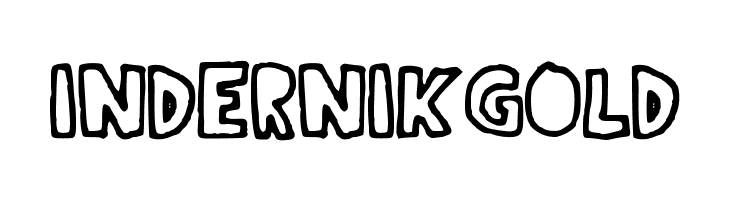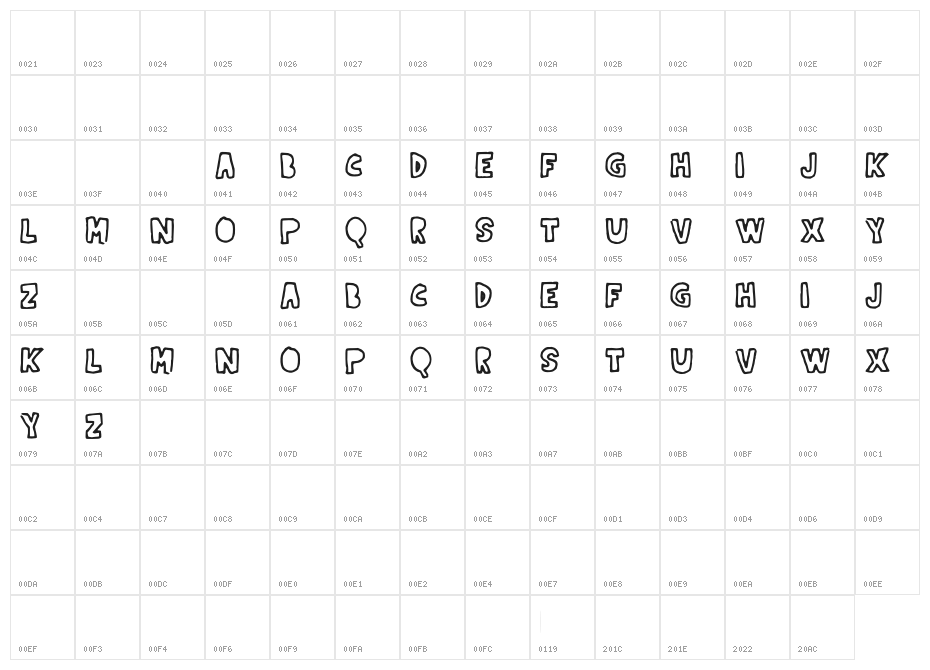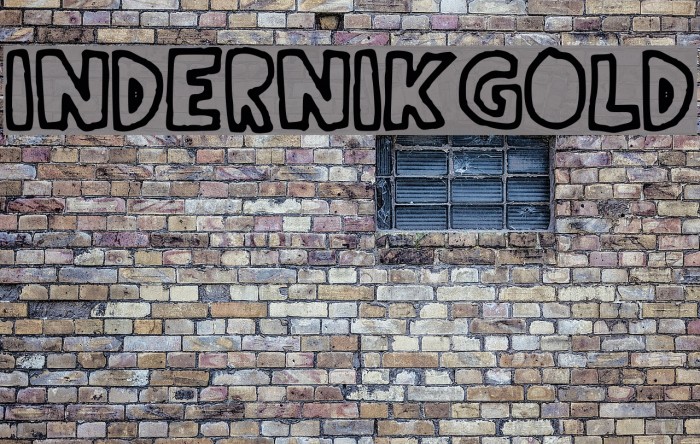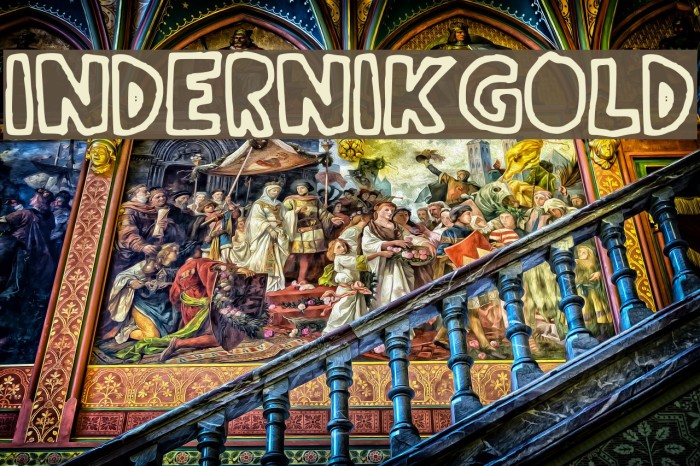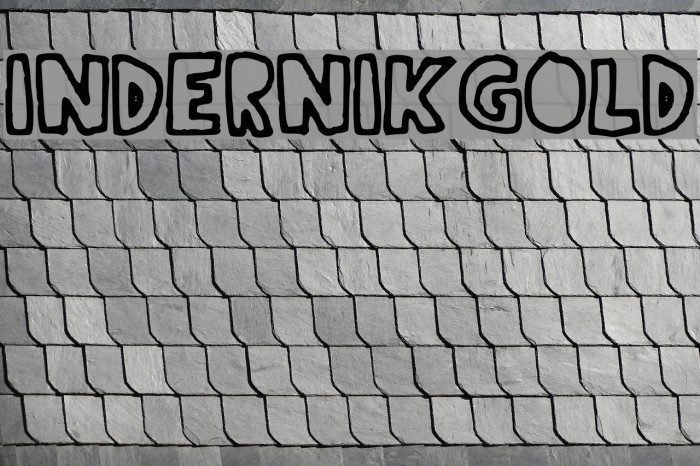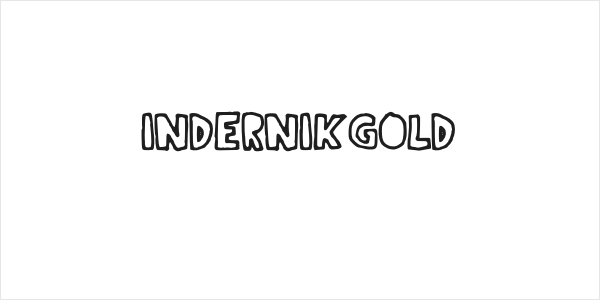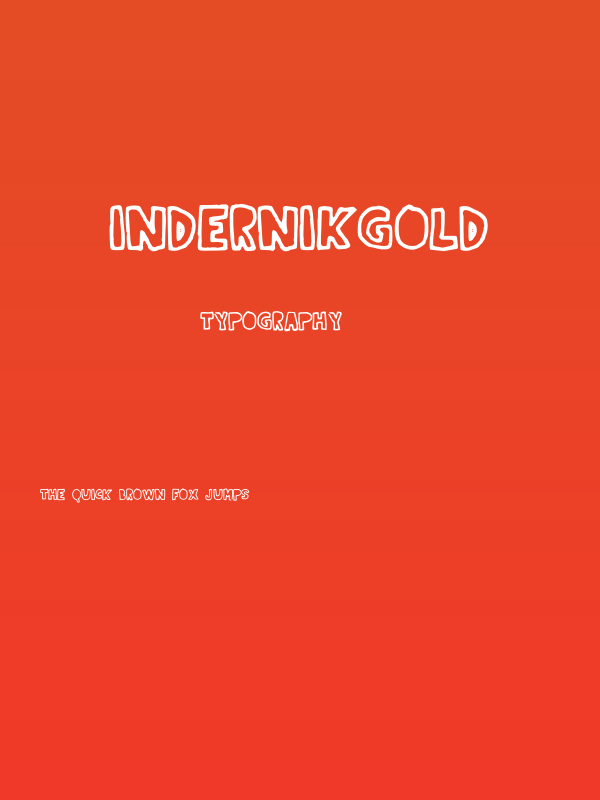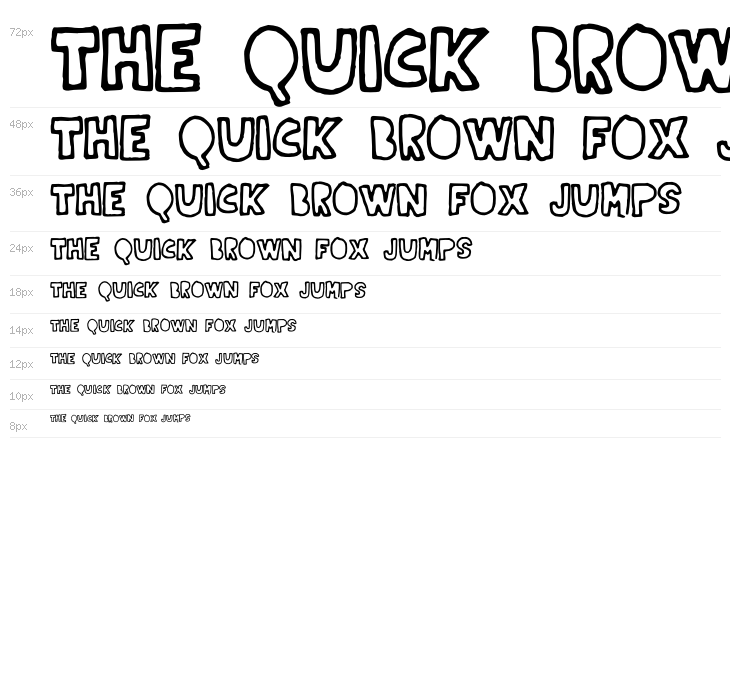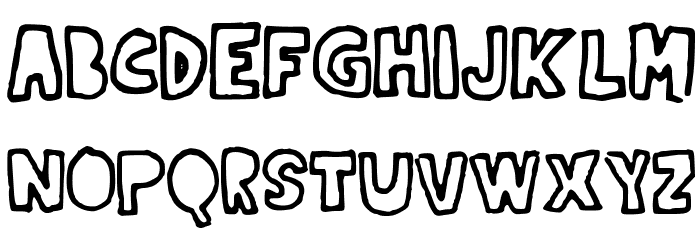
IndernikGold Font
IndernikGold Description
This font features a playful and bold design with a hand-drawn aesthetic. Each character is outlined with a thick, uneven stroke, giving it a cartoonish and informal appearance. The letters are uppercase, with a slightly irregular shape that adds to the whimsical feel. The font lacks lowercase letters and numbers, focusing solely on uppercase characters, which enhances its decorative nature. The style is reminiscent of comic book lettering, making it suitable for projects that require a fun and engaging look.
| Overall Style | Playful, Cartoonish |
| Use Case | Headlines, Posters, Logos |
| Proposed Projects | Ideal for children's book covers, comic strips, playful posters, and any design needing a whimsical touch. |